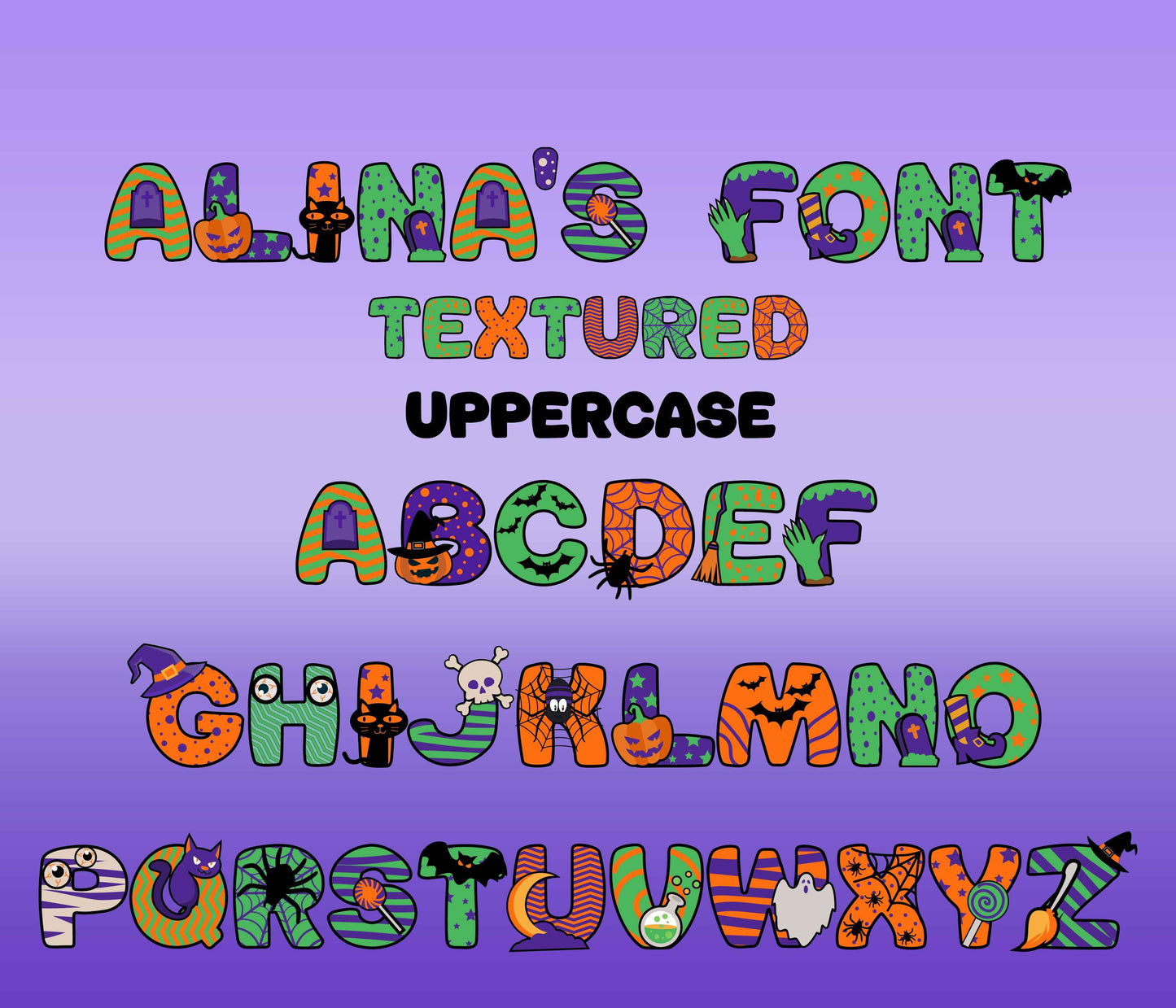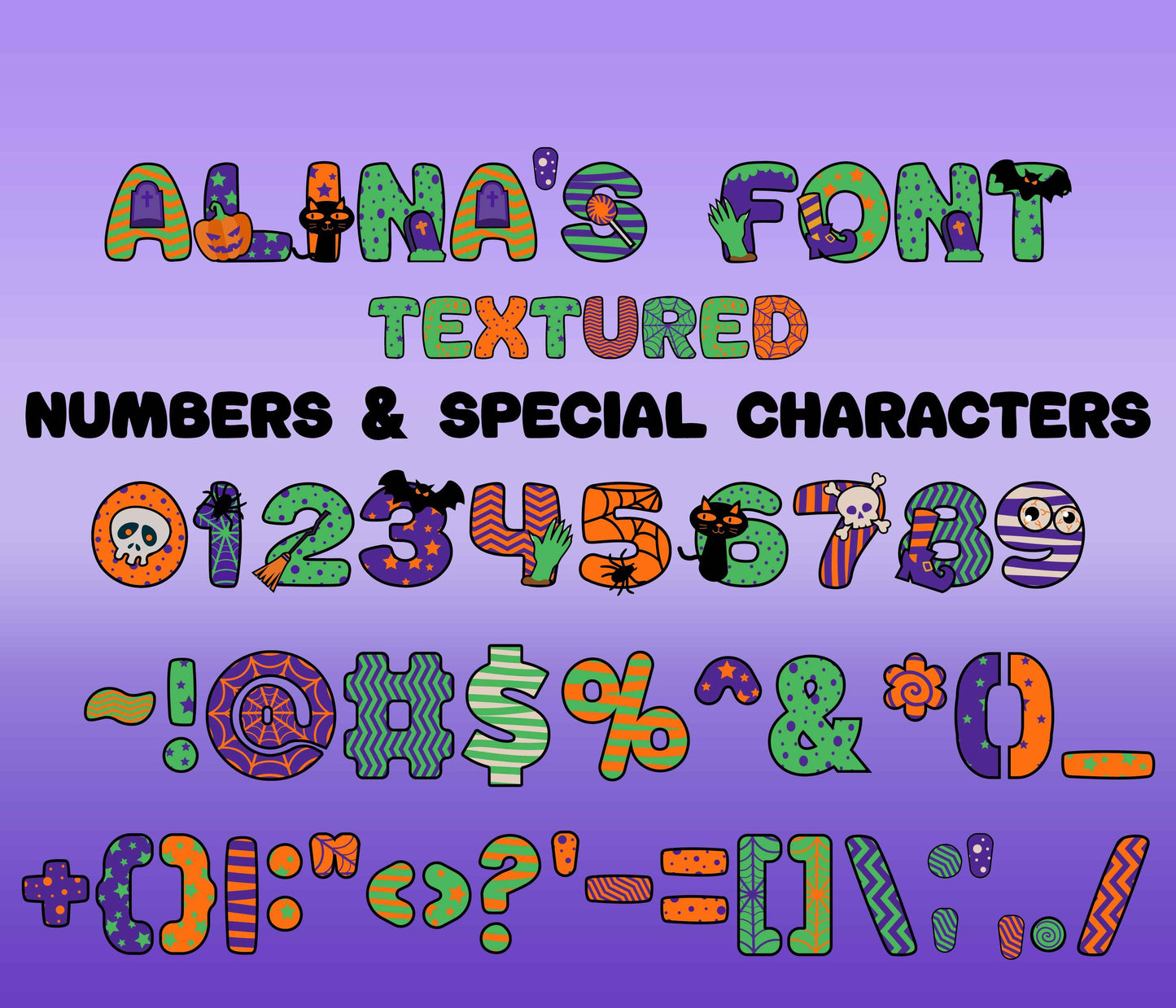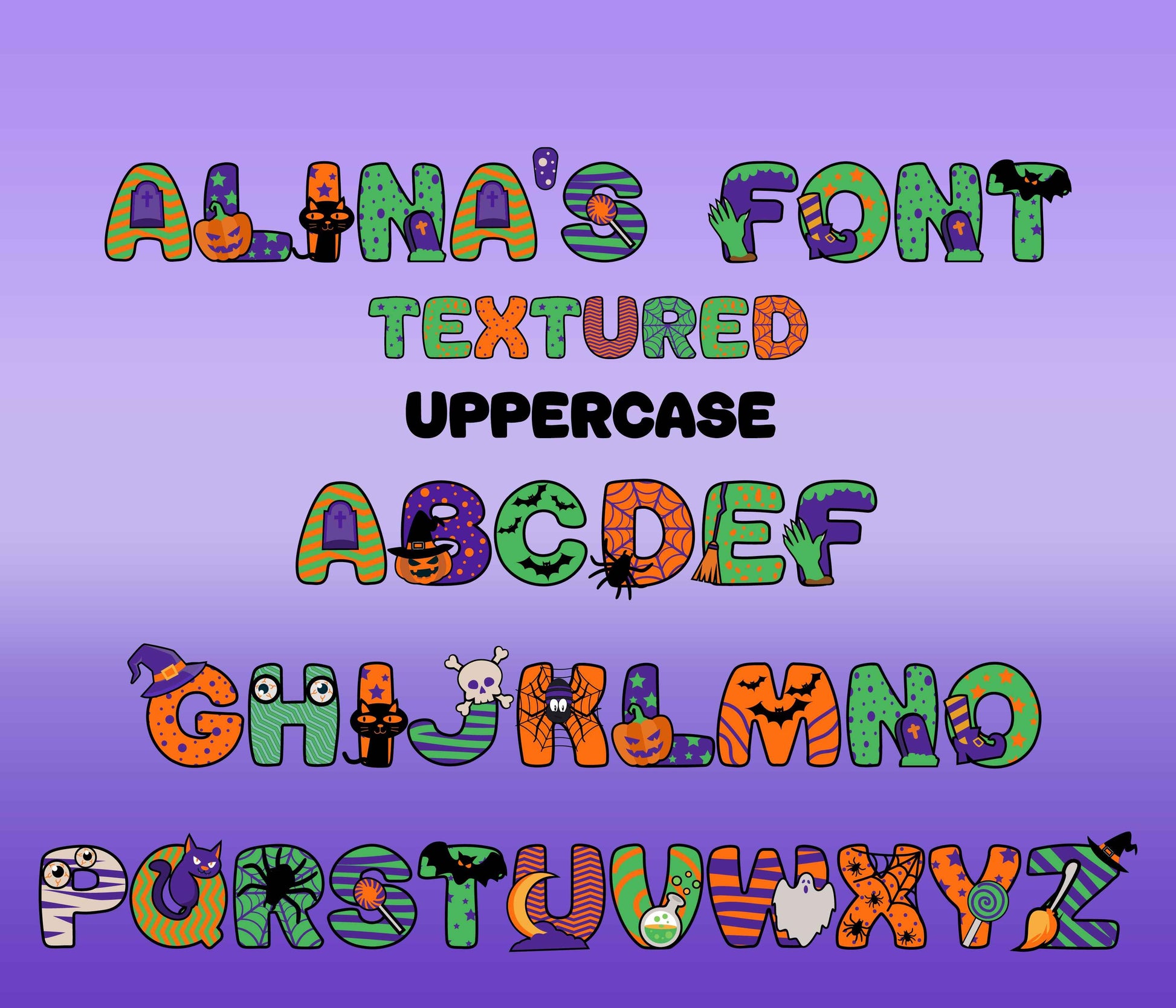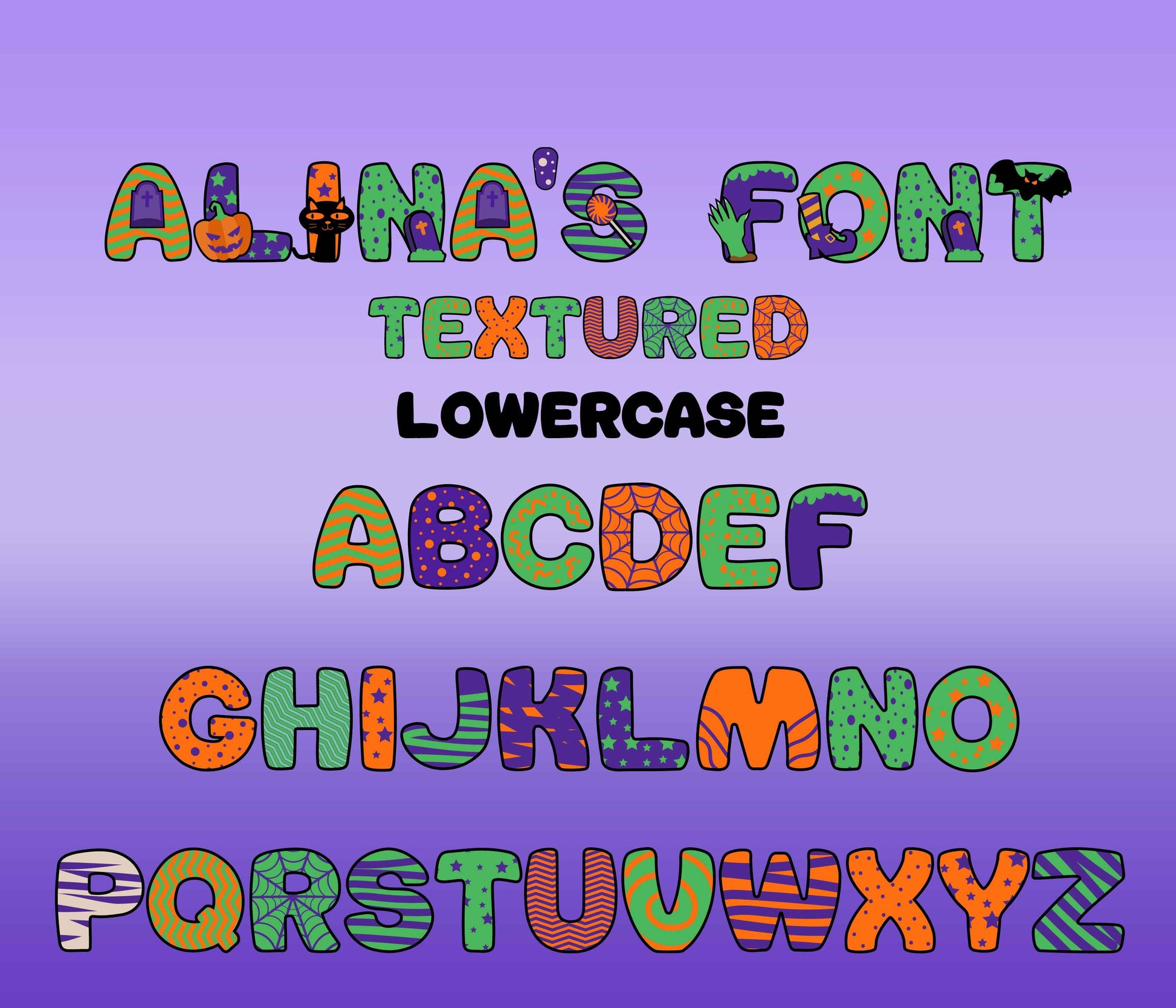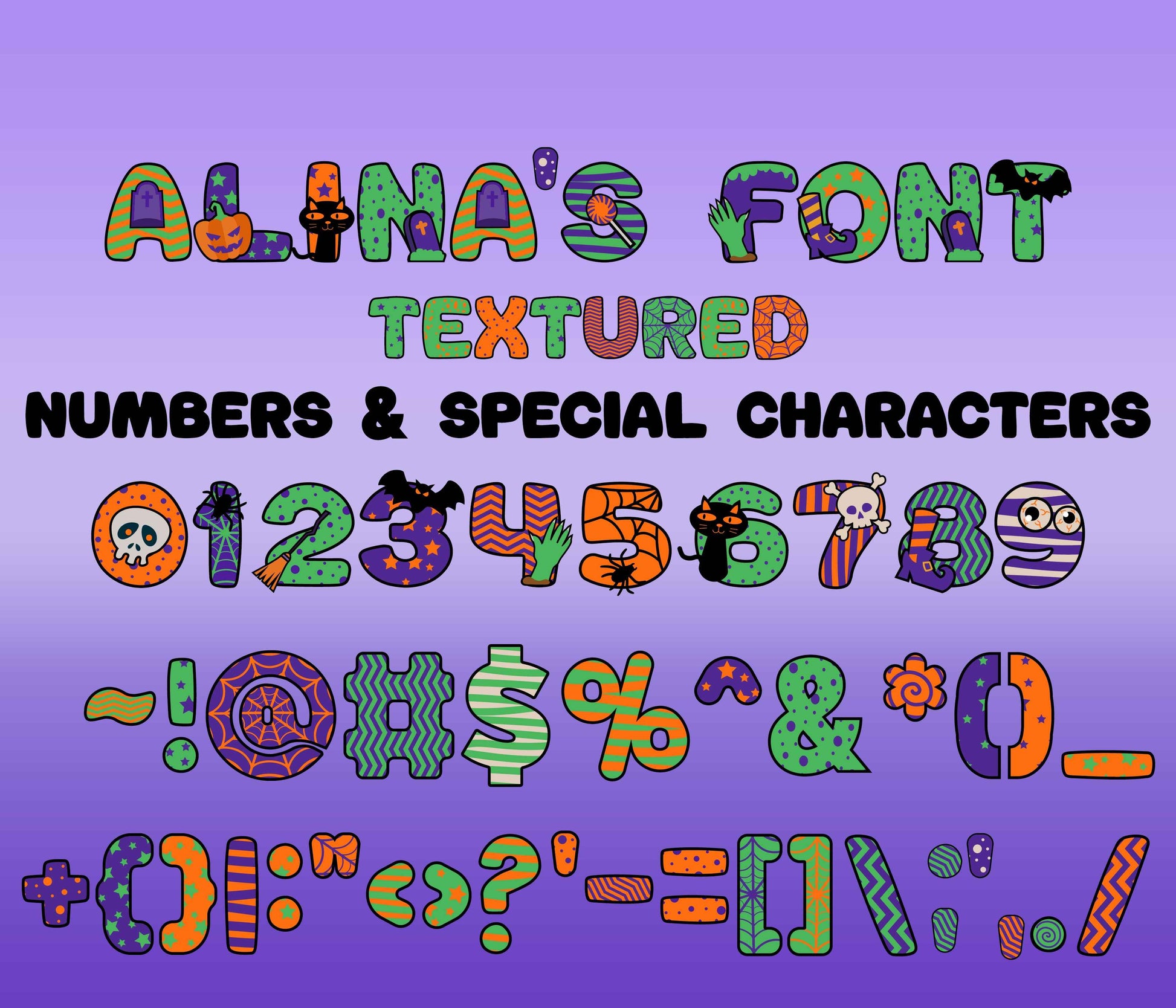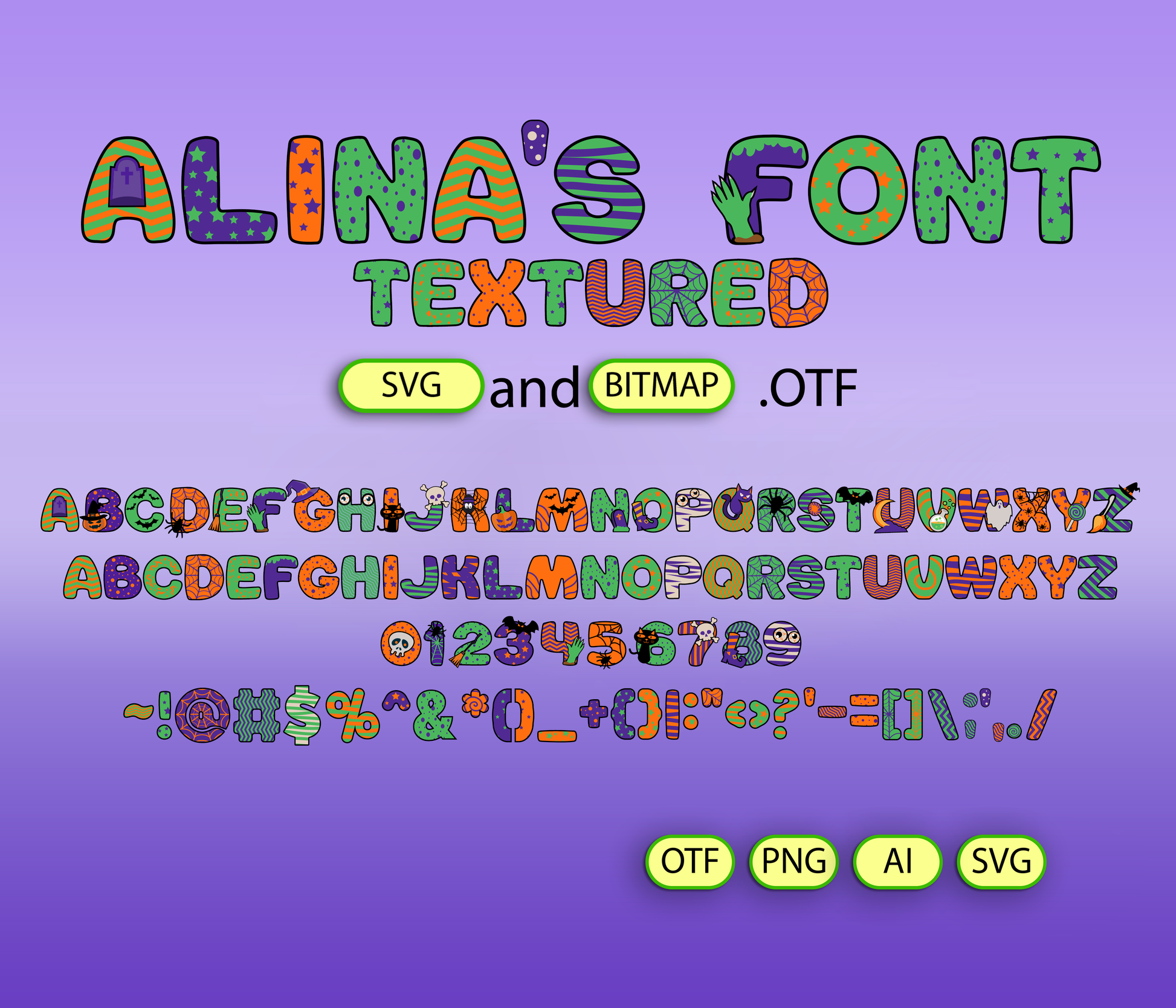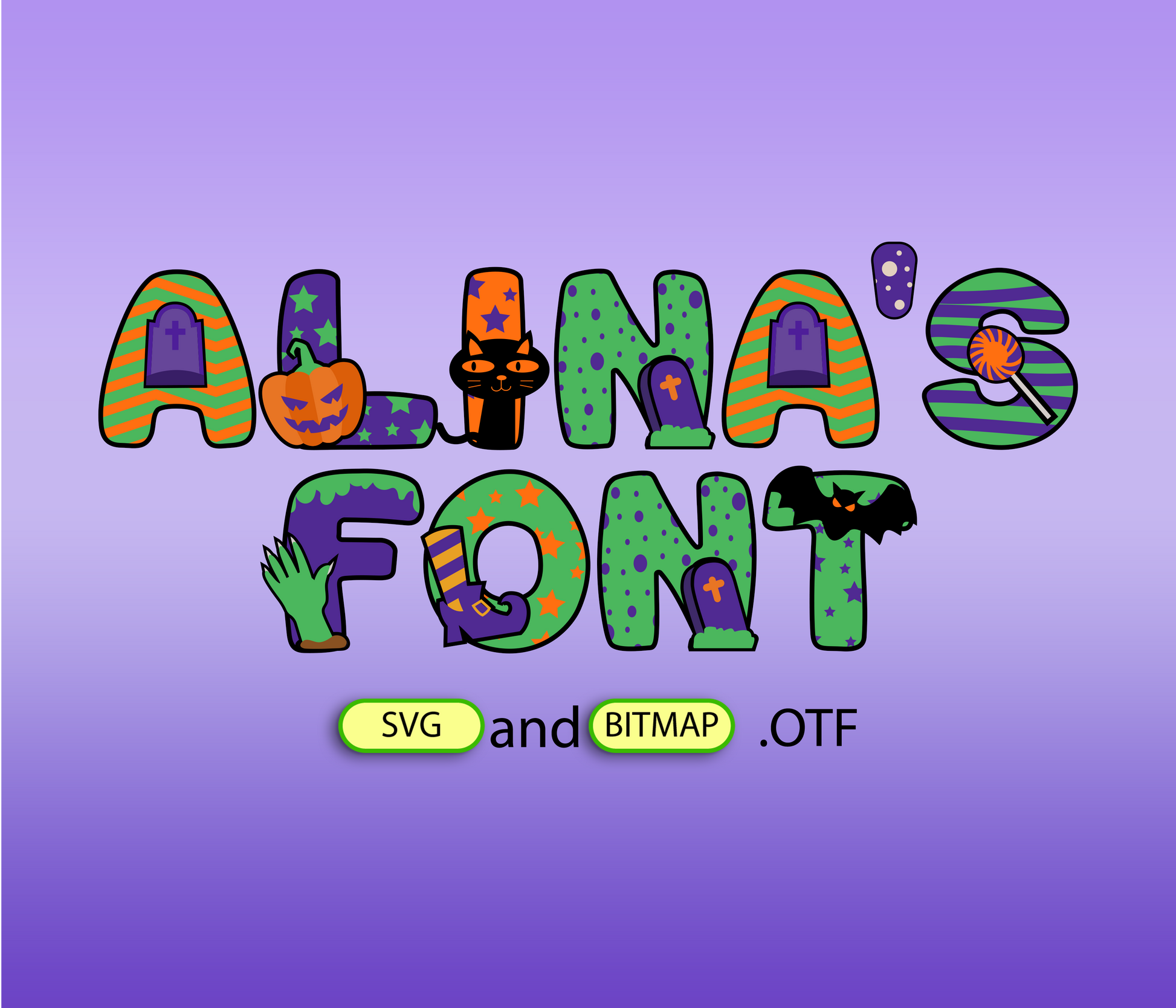
Halloween Color Textured Font: The Spooky Allure of Halloween Pattern Font
Embrace the spirit of Halloween with our Halloween Pattern Font, a font that perfectly encapsulates the eerie and festive atmosphere of this beloved holiday. This font is designed to bring the essence of Halloween to life, featuring characters adorned with classic spooky elements like pumpkins, ghosts, witches, and cobwebs. It's an ideal choice for projects that aim to evoke the thrilling, playful, and slightly spooky essence of Halloween, blending traditional imagery with creative typography.
What font is the Halloween Pattern Font?
Imagine a typeface that combines the whimsy and mystery of Halloween with a visually engaging design. Our font is carefully crafted to reflect the fun and spooky nature of Halloween, incorporating iconic patterns and symbols associated with the holiday into each character. It includes an extensive character set, with alphabets, numbers, and special symbols, offering a comprehensive tool for a variety of creative projects that seek to capture the unique and spirited vibe of Halloween.
What Can You Do With Halloween Pattern Font?
- Halloween Party Invitations: Ideal for creating eye-catching invitations for Halloween parties and events.
- Seasonal Decorations: Enhance banners, signs, and decorations for Halloween-themed spaces.
- Custom Apparel and Merchandise: Design t-shirts, bags, and accessories for Halloween enthusiasts.
- Event Signage: Craft signage for haunted houses, Halloween festivals, and other spooky events.
- Marketing and Promotions: Incorporate into seasonal marketing materials and advertisements.
- Digital Content: Spice up websites, social media posts, and digital graphics with a Halloween theme.
- Personalized Stationery: Create stationery sets with a unique Halloween flair.
- Educational Materials: Use in teaching resources for Halloween-themed lessons and activities.
- Creative Art and DIY Projects: Perfect for scrapbooking, crafting, and artistic endeavors inspired by the holiday.
- Home Decor: Design wall art, decals, and other items that capture the Halloween spirit.
The Halloween Pattern Font is more than just a typeface; it's a celebration of the spookiness, fun, and creativity that define Halloween.